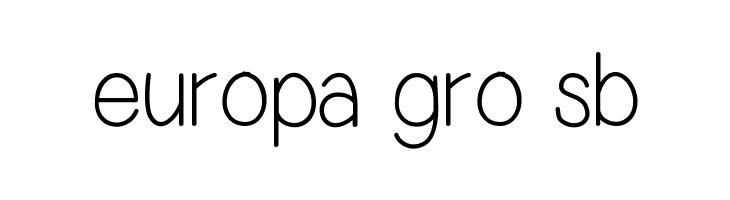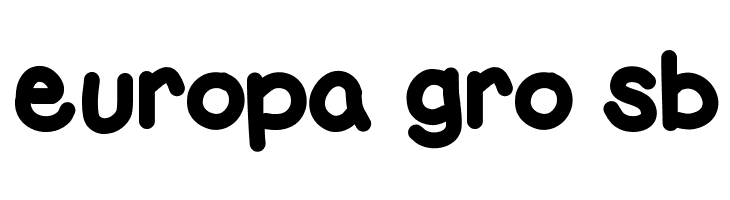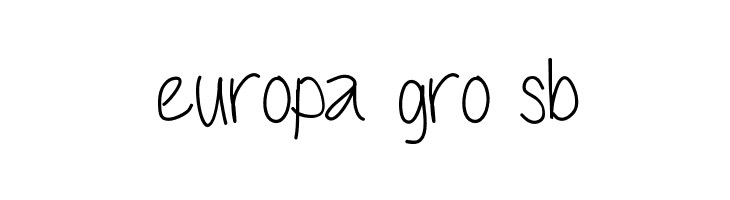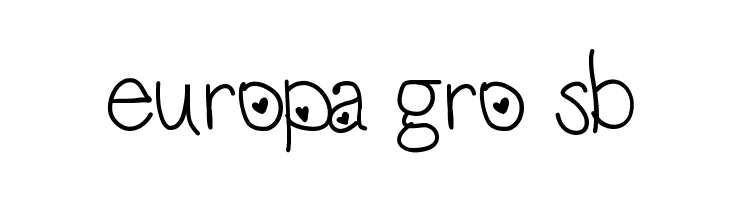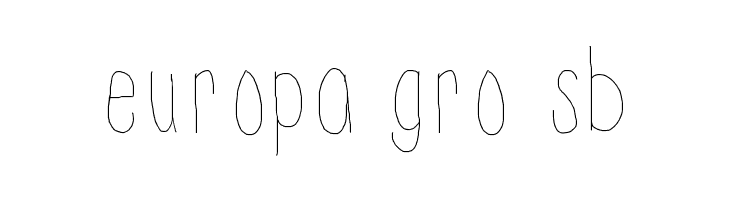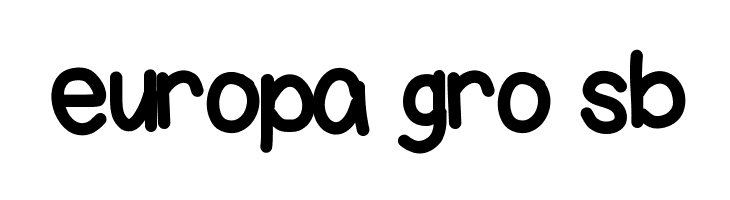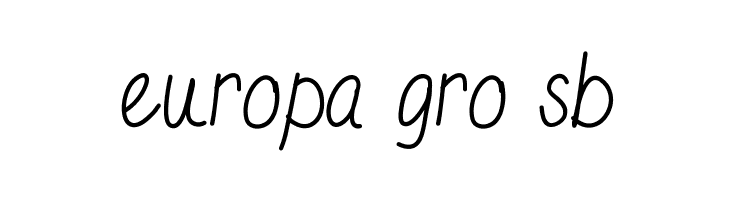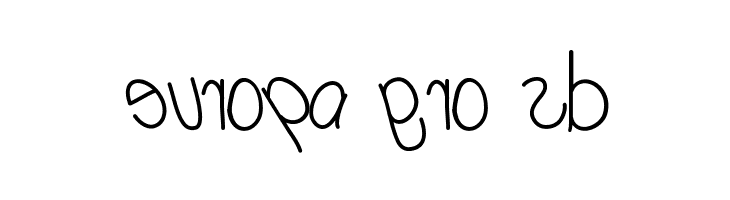
Bubble Letters Font
Font by Vanessa Bays - bythebutterfly.com
A playful, outlined bubble font with a fun and informal style.
Diamond Girl Skinny Font
Font by Vanessa Bays - bythebutterfly.com
A playful, casual handwritten font with rounded, irregular letterforms.
A little sunshine Font
Font by Vanessa Bays - bythebutterfly.com
A playful, hand-drawn font with tall, narrow letters and a whimsical style.
All Things Pink Font
Font by Vanessa Bays - bythebutterfly.com
A playful, handwritten font with smooth, rounded edges and a casual style.
Always In My Heart Font
Font by Vanessa Bays - bythebutterfly.com
A playful and flowing script font with smooth, rounded curves.
Miss Smarty Pants Font
Font by Vanessa Bays - bythebutterfly.com
A playful, handwritten font with consistent stroke thickness and a whimsical style.
Please write me a song Font
Font by Vanessa Bays - bythebutterfly.com
A playful, hand-drawn font with rounded edges and a whimsical style.
Cutie Patootie Font
Font by Vanessa Bays - bythebutterfly.com
All Things Pink Skinny Font
Font by Vanessa Bays - bythebutterfly.com
A playful, handwritten font with tall, narrow characters and rounded edges.
Wednesday Font
Font by Vanessa Bays - bythebutterfly.com
A playful, dotted, handwritten-style font with a whimsical flair.
A Gentle Touch Font
Font by Vanessa Bays - bythebutterfly.com
A playful, handwritten script font with smooth, connected letters.
Lilian Font
Font by Vanessa Bays - bythebutterfly.com
A playful, handwritten font with rounded, uniform strokes.
PassingNotes Font
Font by Vanessa Bays - bythebutterfly.com
A playful, handwritten-style font with rounded, consistent strokes.
Georgia Belle Skinny Font
Font by Vanessa Bays - bythebutterfly.com
A playful, thin, and rounded font with a whimsical style.
Chocolate Covered Raindrops Bold Font
Font by Vanessa Bays - bythebutterfly.com
A playful, bold handwritten font with a whimsical and casual vibe.
Simplicity Font
Font by Vanessa Bays - bythebutterfly.com
A clean, geometric font with a minimalist and modern design.
CurlyShirley Font
Font by Vanessa Bays - bythebutterfly.com
A whimsical, curly font perfect for playful and fun designs.
Life's A Beach Font
Font by Vanessa Bays - bythebutterfly.com
A playful, rounded font with smooth lines and a casual, friendly style.
Just Gotta Smile Font